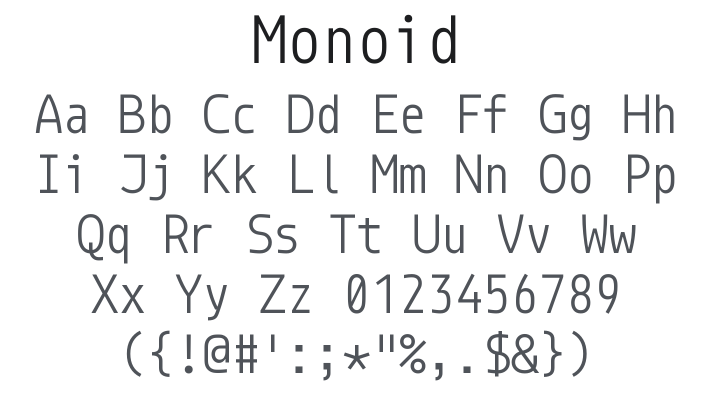
Monoid Font Family
by Andreas Larsen
• Monoid Regular
• Monoid Bold
• Monoid Italic
• Monoid Retina
About Monoid
Monoid is customizable and optimized for coding with bitmap-like sharpness at 12px/9pt even on low res displays.